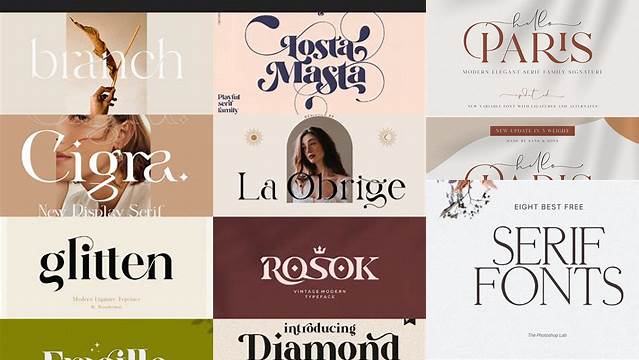
Stylish Serif Fonts: Free Downloads For You
Hey guys! Looking to add a touch of class and sophistication to your designs? You've come to the right place! Serif fonts are your best friend when you want to convey elegance, tradition, and readability. And the best part? There are tons of stylish serif fonts available for free download! This article is your ultimate guide to finding the perfect serif font to elevate your projects. We'll dive deep into everything from classic choices to modern twists, ensuring you'll discover fonts that make your text look absolutely stunning. So, let's get started and explore the wonderful world of serif fonts!
1. Classic Serif Fonts: Timeless Elegance
When we talk about stylish serif fonts, we can't ignore the classics. These fonts have stood the test of time and continue to be favorites for their readability and timeless appeal. Think of fonts like Times New Roman, Garamond, and Baskerville. These aren't just any fonts; they're the stalwarts of the design world. They bring a sense of history and authority to your text, making them perfect for formal documents, books, and websites that aim for a traditional look. But don't think they're outdated! These fonts are incredibly versatile and can be used in modern designs too. Imagine using Garamond for the body text of your website and pairing it with a sleek, sans-serif header. The contrast creates a sophisticated and balanced aesthetic. With classic serif fonts, you're not just choosing a typeface; you're choosing a legacy of design excellence. They're reliable, readable, and effortlessly elegant, making them a must-have in any designer's toolkit. The subtle serifs, those little feet at the end of the strokes, contribute to their readability by guiding the eye across the page. This is why they're so often used in long-form content, where readability is paramount. Choosing a classic serif font is like investing in a well-tailored suit – it will always look good and never go out of style.
2. Modern Serif Fonts: A Contemporary Twist
If you love the elegance of serifs but crave something a bit more contemporary, then modern serif fonts are your go-to. These fonts take the traditional elements of serifs and give them a fresh, updated look. Think clean lines, sharp contrasts, and a touch of personality. Fonts like Playfair Display, EB Garamond, and Merriweather are excellent examples. They retain the readability of classic serifs but add a dash of flair that makes them perfect for headlines, logos, and branding materials. Imagine a sleek, modern website using Playfair Display for its headings, creating a striking visual impact that grabs attention. Or consider using Merriweather for your blog's body text, offering a comfortable reading experience with a touch of sophistication. Modern serif fonts are all about balance – they blend tradition with innovation, creating a look that's both timeless and current. This makes them incredibly versatile for a wide range of projects, from editorial design to web design. They often feature higher contrast between thick and thin strokes, which adds to their visual interest and makes them stand out. Choosing a modern serif font is a great way to make a statement without sacrificing readability. It's a nod to the past with an eye on the future.
3. Elegant Serif Fonts for Branding
For brands that want to exude sophistication and luxury, elegant serif fonts are the key. These fonts have a refined, polished look that communicates quality and attention to detail. They're perfect for high-end brands in fashion, beauty, hospitality, and more. Think of brands like Chanel or Gucci – their logos and branding materials often feature elegant serifs that convey their premium status. Fonts like Didot, Bodoni, and Lora are fantastic examples of elegant serif fonts. They have a distinctive style with their high contrast and delicate serifs, making them ideal for logos, headlines, and packaging. Imagine a skincare brand using Didot for its logo, instantly conveying a sense of luxury and sophistication. Or consider a boutique hotel using Lora for its website, creating an inviting and stylish online presence. The key to using elegant serif fonts for branding is to ensure they align with your brand's overall aesthetic and message. They should enhance your brand's personality, not overshadow it. With elegant serif fonts, you're not just choosing a typeface; you're choosing a visual voice that speaks to your target audience and communicates your brand's values.
4. Free Serif Fonts for Websites
Creating a website that looks professional and inviting often starts with choosing the right fonts. And the good news is, there are plenty of free serif fonts available that are perfect for websites! These fonts can help you establish a strong visual hierarchy, improve readability, and create a cohesive design. Fonts like Open Sans (although technically a sans-serif, it pairs beautifully with serifs), Roboto Serif, and Montserrat (another great sans-serif pairing option) are excellent choices. They're highly readable on screens, come in various weights and styles, and are readily available on platforms like Google Fonts. Imagine using Roboto Serif for your website's body text, offering a clean and comfortable reading experience for your visitors. Or consider using Montserrat for your headings, creating a modern and approachable look. When choosing free serif fonts for websites, it's essential to consider factors like readability, loading speed, and compatibility across different browsers and devices. You want to ensure that your website looks great and functions smoothly for all users. Pairing serif fonts with sans-serif fonts is a popular technique to create visual interest and balance. Using a serif font for headings and a sans-serif font for body text can make your website more engaging and easier to read. With the abundance of free serif fonts available, you can create a stunning website without breaking the bank.
5. Downloadable Serif Fonts for Print
When it comes to print design, the right font can make all the difference. Downloadable serif fonts are essential for creating professional-looking documents, brochures, posters, and more. They offer a level of readability and sophistication that's crucial for print materials. Fonts like Garamond, Baskerville, and Times New Roman are classics for a reason – they're incredibly readable and versatile, making them perfect for a wide range of print projects. Imagine using Garamond for a book's body text, creating a timeless and elegant reading experience. Or consider using Baskerville for a formal invitation, conveying a sense of tradition and sophistication. When choosing downloadable serif fonts for print, it's important to consider factors like the font's weight, kerning, and overall legibility. You want to ensure that your text is easy to read, even at smaller sizes. High-quality serif fonts are designed to look crisp and clear in print, which is crucial for professional-looking materials. Many websites offer free and premium serif fonts for download, so you can find the perfect typeface for your print projects. Whether you're designing a business card or a magazine layout, the right serif font can elevate your design and make a lasting impression.
6. Best Serif Fonts for Body Text
The heart of any design with a lot of text is the body text. Choosing the best serif fonts for body text is crucial for ensuring readability and a pleasant reading experience. After all, no one wants to strain their eyes trying to decipher long paragraphs! Fonts like Georgia, Times New Roman, and Bookerly are excellent choices for body text. They're designed to be highly legible at smaller sizes, making them perfect for books, articles, and websites. Imagine reading a novel set in Georgia – the font's clear and open letterforms make it easy to lose yourself in the story. Or consider a news website using Times New Roman for its articles, providing a familiar and reliable reading experience. When selecting best serif fonts for body text, prioritize readability above all else. Look for fonts with consistent letter spacing, clear distinctions between characters, and a comfortable x-height (the height of lowercase letters). The goal is to create a visual experience that's seamless and effortless for the reader. Many designers recommend using a serif font for body text and a sans-serif font for headings to create visual contrast and hierarchy. This combination can make your design more engaging and easier to navigate. With the right serif font, your body text will not only be readable but also add to the overall aesthetic appeal of your design.
7. Top Serif Fonts for Headlines
Headlines are the first thing that grabs a reader's attention, so choosing the top serif fonts for headlines is essential for making a strong visual impact. These fonts need to be bold, eye-catching, and convey the essence of your message in a concise way. Fonts like Playfair Display, Bebas Neue (technically a sans-serif, but it pairs wonderfully with serifs), and Oswald (another excellent sans-serif option) are fantastic for headlines. They have a distinctive personality and can add a touch of elegance or modernity to your design. Imagine a fashion magazine using Playfair Display for its headlines, creating a sophisticated and stylish look. Or consider a blog using Oswald for its headings, providing a clean and contemporary feel. When selecting top serif fonts for headlines, think about the overall tone and style you want to convey. Do you want something classic and refined, or modern and bold? Choose a font that reflects your brand's personality and resonates with your target audience. Pairing a bold serif font for headlines with a simpler serif or sans-serif font for body text can create a visually balanced and engaging design. The right headline font can make your message stand out and draw readers in, so it's worth taking the time to find the perfect match.
8. Popular Serif Fonts in Graphic Design
In the world of graphic design, certain serif fonts have become perennial favorites for their versatility and aesthetic appeal. These popular serif fonts in graphic design are used across a wide range of projects, from branding and logos to print and web design. Fonts like Garamond, Helvetica (another versatile sans-serif that's often paired with serifs), and Times New Roman are staples in any designer's toolkit. They're known for their readability, timelessness, and ability to convey a sense of professionalism and sophistication. Imagine a corporate brochure using Garamond for its body text and headings, creating a cohesive and polished look. Or consider a website using Helvetica for its navigation and body text, providing a clean and modern user experience. When it comes to popular serif fonts in graphic design, the key is to use them in a way that complements your overall design and message. Don't just choose a font because it's popular; choose it because it's the right fit for your project. Many designers mix and match serif and sans-serif fonts to create visual contrast and interest. This technique can add depth and personality to your design, making it stand out from the crowd. By understanding the strengths of popular serif fonts and how to use them effectively, you can create designs that are both visually appealing and highly functional.
9. Unique Serif Fonts to Stand Out
Tired of the same old fonts? Want to make your designs truly unique? Then it's time to explore some unique serif fonts to stand out. These fonts have a distinctive personality and can add a touch of originality to your projects. Think of fonts like Mrs Eaves, Bembo, and Caslon. These fonts have a rich history and a unique character that sets them apart from more common typefaces. Imagine a wedding invitation using Mrs Eaves, creating an elegant and slightly whimsical look. Or consider a book cover using Bembo, conveying a sense of classic literature and sophistication. When choosing unique serif fonts to stand out, it's important to consider how the font's personality aligns with your message. You want to choose a font that enhances your design, not distracts from it. While unique fonts can add a lot of character, it's also crucial to ensure they're still readable, especially in body text. Experiment with different pairings and see how these unique serifs can bring your designs to life. By using unique serif fonts, you can create designs that are memorable and truly stand out from the competition.
10. Serif Fonts with Character
Sometimes, you need a font that does more than just display text; you need a font with serif fonts with character. These fonts have a distinct personality and can add a lot of flavor to your designs. Fonts like Abril Fatface, Arvo, and Bitter are excellent examples of serifs with character. They have unique shapes, weights, and styles that make them stand out from more traditional typefaces. Imagine a poster using Abril Fatface for its headline, creating a bold and attention-grabbing statement. Or consider a blog using Arvo for its headings, providing a strong and contemporary feel. When selecting serif fonts with character, think about the message you want to convey and the overall tone of your design. These fonts can be used to create a sense of playfulness, sophistication, or even drama. However, it's essential to use them judiciously. Too much character can be overwhelming, so balance is key. Pairing a serif font with character with a simpler, more neutral font can create a visually appealing contrast. By using serif fonts with character, you can add personality and flair to your designs, making them truly memorable.
11. Serif Fonts for a Professional Look
In the business world, presenting a professional image is crucial, and the fonts you use play a significant role in that. Choosing the right serif fonts for a professional look can convey credibility, trustworthiness, and attention to detail. Fonts like Garamond, Baskerville, and Times New Roman are classic choices for a reason – they're reliable, readable, and exude professionalism. Imagine a legal document using Garamond, creating a sense of formality and authority. Or consider a business report using Baskerville, providing a clear and easy-to-read layout. When selecting serif fonts for a professional look, prioritize readability and consistency. You want a font that's easy on the eyes and maintains a consistent style throughout your materials. Avoid fonts that are overly decorative or whimsical, as they can detract from your message. Pairing a professional serif font with a clean sans-serif font can create a balanced and modern look. The goal is to choose fonts that enhance your message and project a polished, professional image. With the right serif fonts, you can ensure your documents and designs convey the professionalism you want to project.
12. Stylish Serif Fonts for Logos
A logo is the face of your brand, so choosing the right font is crucial for making a lasting impression. Stylish serif fonts for logos can convey a sense of sophistication, tradition, and trustworthiness. Fonts like Playfair Display, Lora, and Didot are excellent choices for logos, especially for brands that want to project an elegant or high-end image. Imagine a luxury brand using Didot for its logo, creating a classic and refined look. Or consider a boutique hotel using Lora, providing an inviting and stylish feel. When selecting stylish serif fonts for logos, think about your brand's personality and the message you want to convey. Your logo font should be unique enough to stand out but also easy to read and recognize. It's also essential to consider how the font will look in different sizes and applications, from business cards to website headers. A well-chosen serif font can add a touch of class and sophistication to your logo, making it memorable and impactful.
13. Serif Fonts for Resumes and CVs
Your resume or CV is your first impression on potential employers, so making it visually appealing and easy to read is crucial. Choosing the right serif fonts for resumes and CVs can help you present yourself as professional, organized, and detail-oriented. Fonts like Garamond, Times New Roman, and Georgia are excellent choices for resumes. They're highly readable, classic, and convey a sense of professionalism. Imagine a recruiter reading a resume set in Garamond – the font's clarity and elegance make it easy to scan and absorb information. Or consider a CV using Georgia, providing a clean and modern layout. When selecting serif fonts for resumes and CVs, prioritize readability above all else. You want a font that's easy on the eyes and doesn't distract from your qualifications. Avoid fonts that are too decorative or unconventional, as they can make your resume look cluttered and unprofessional. Stick to classic, readable fonts that convey confidence and competence. A well-chosen serif font can help your resume stand out for the right reasons, making a positive first impression on potential employers.
14. Free Google Serif Fonts
For designers on a budget, free Google serif fonts are a lifesaver. Google Fonts offers a vast library of high-quality serif fonts that are free to use in your projects. This means you can create stunning designs without spending a dime on typography. Fonts like Roboto Serif, Merriweather, and Arvo are excellent choices from Google Fonts. They're versatile, readable, and come in various weights and styles. Imagine a website using Roboto Serif for its body text, providing a clean and modern reading experience. Or consider a blog using Merriweather for its headings, creating a stylish and engaging look. When exploring free Google serif fonts, take advantage of Google Fonts' filtering options to find the perfect font for your needs. You can filter by style, weight, and even language. It's also helpful to preview how different fonts pair together to create a cohesive design. With so many great options available, Google Fonts makes it easy to find the perfect serif font for your project, no matter your budget.
15. Serif Fonts for Books and Publications
When it comes to books and publications, readability is paramount. Choosing the right serif fonts for books and publications can make the difference between a pleasant reading experience and one that's straining and frustrating. Fonts like Garamond, Baskerville, and Caslon are classics for a reason – they're designed to be highly legible in long-form text. Imagine reading a novel set in Garamond, where the font's elegance and clarity draw you into the story. Or consider a textbook using Baskerville, providing a clear and easy-to-follow layout. When selecting serif fonts for books and publications, prioritize fonts with consistent letter spacing, comfortable x-heights, and well-defined serifs. These features contribute to a smoother reading experience and prevent eye fatigue. Many publishers use a combination of serif and sans-serif fonts, with serifs for the body text and sans-serifs for headings or captions. This can create visual contrast and make the publication more engaging. By carefully selecting your serif fonts, you can ensure that your books and publications are not only visually appealing but also highly readable.
16. Best Serif Fonts for Long-Form Content
Long-form content demands fonts that are easy on the eyes and encourage prolonged reading. The best serif fonts for long-form content are those that prioritize readability and prevent eye strain. Fonts like Georgia, Times New Roman, and Bookerly are specifically designed for extended reading sessions. Imagine delving into a lengthy article set in Georgia, where the font's clarity and open letterforms keep you engaged. Or consider a research paper using Times New Roman, providing a familiar and professional look. When choosing best serif fonts for long-form content, look for fonts with consistent letter spacing, comfortable x-heights, and clear distinctions between characters. These features contribute to a more seamless reading experience. The serifs themselves help guide the eye across the page, reducing the effort required to read long passages. Using a well-chosen serif font for long-form content demonstrates a commitment to your readers' comfort and engagement, making your content more enjoyable and accessible.
17. High-Quality Serif Fonts Free
Finding high-quality serif fonts free of charge is like discovering a hidden gem. Fortunately, there are numerous resources where you can access professionally designed serif fonts without spending a dime. Websites like Google Fonts, Font Squirrel, and DaFont offer a vast selection of free serif fonts that are perfect for a wide range of projects. Imagine creating a stunning website using a free Google Font like Roboto Serif or Merriweather. Or consider designing a professional brochure using a free font from Font Squirrel. When searching for high-quality serif fonts free, pay attention to the font's license to ensure you can use it for your intended purposes. Many free fonts come with specific usage restrictions, such as for personal use only. It's also a good idea to preview the font in different sizes and contexts to ensure it meets your needs. With a little bit of searching, you can find fantastic free serif fonts that rival their paid counterparts, allowing you to elevate your designs without breaking the bank.
18. Affordable Serif Fonts for Designers
While free fonts are great, sometimes investing in affordable serif fonts for designers can open up a whole new world of typographic possibilities. Premium fonts often offer more features, greater stylistic range, and higher quality design than free options. Websites like MyFonts, Creative Market, and Adobe Fonts offer a wide variety of affordable serif fonts that can elevate your designs. Imagine using a meticulously crafted serif font from MyFonts to create a unique logo for your client. Or consider using a versatile serif family from Adobe Fonts to ensure consistency across all your branding materials. When exploring affordable serif fonts for designers, think about the long-term value they can bring to your work. Investing in a high-quality font can save you time and effort in the long run, and it can also enhance the overall professionalism and aesthetic appeal of your designs. Keep an eye out for sales and bundles to get even more value for your money. By strategically investing in affordable serif fonts, you can build a robust typographic library that serves your design needs for years to come.
19. Serif Fonts for Website Headers
Website headers are prime real estate for grabbing visitors' attention, and the right font can make all the difference. Serif fonts for website headers can convey a sense of sophistication, authority, and visual interest. Fonts like Playfair Display, Lora, and Abril Fatface are excellent choices for headers, adding a touch of elegance and personality to your site. Imagine a blog using Playfair Display for its headers, creating a stylish and engaging reading experience. Or consider a business website using Abril Fatface for its headings, making a bold and memorable statement. When selecting serif fonts for website headers, think about the overall tone and style of your website. Your header font should complement your brand's personality and attract your target audience. It's also important to consider the font's readability and how it pairs with the body text font. A well-chosen serif font can make your website headers stand out, drawing visitors in and encouraging them to explore your content further.
20. Serif Fonts for Business Cards
Your business card is a miniature representation of your brand, so it's essential to make it visually appealing and professional. Choosing the right serif fonts for business cards can convey credibility, trustworthiness, and attention to detail. Fonts like Garamond, Baskerville, and Georgia are classic choices for business cards, offering a timeless and elegant look. Imagine handing someone a business card set in Garamond, where the font's sophistication and clarity leave a lasting impression. Or consider a business card using Georgia, providing a clean and easy-to-read layout. When selecting serif fonts for business cards, prioritize readability and ensure the font remains legible even at small sizes. Avoid fonts that are too decorative or condensed, as they can be difficult to read. Keep your font choices consistent with your overall branding to create a cohesive and professional image. A well-chosen serif font can make your business card stand out and help you make a positive first impression.
21. How to Pair Serif Fonts
The art of how to pair serif fonts effectively can elevate your designs from good to great. Combining different serif fonts can create visual interest and hierarchy, but it's crucial to do it thoughtfully to avoid a cluttered or chaotic look. A good starting point is to pair a serif font with a distinct personality with a more neutral serif font. For example, you might pair Playfair Display with Garamond or Lora with Georgia. When considering how to pair serif fonts, think about the contrast and harmony between the fonts. Do they complement each other, or do they clash? Pay attention to the fonts' weights, styles, and x-heights. Fonts with similar x-heights tend to pair well together. Another common technique is to pair a serif font with a sans-serif font. This can create a dynamic contrast while maintaining readability. For example, you might use a serif font for headings and a sans-serif font for body text. Experiment with different combinations and trust your eye to find pairings that feel balanced and visually appealing. Effective font pairing is a skill that develops with practice, so don't be afraid to try new things and learn from your experiences.
22. Serif Font Styles: Bold, Italic, Light
Understanding the different serif font styles, such as bold, italic, and light, is essential for creating visually engaging and well-structured designs. Each style serves a specific purpose and can enhance the readability and impact of your text. Bold serif fonts are excellent for headlines, subheadings, and emphasizing key words or phrases. They draw the reader's eye and create a sense of importance. Italic serif fonts are often used for emphasis, quotations, or to create a sense of elegance and sophistication. They add a touch of flair to your text and can help differentiate certain elements from the rest of your content. Light serif fonts are perfect for body text, as they provide a clean and airy feel that's easy on the eyes. They work well in long-form content where readability is paramount. When considering serif font styles, think about how you can use them to create visual hierarchy and guide the reader through your design. Experiment with different styles and weights to find the perfect balance for your project. Using serif font styles effectively can transform your text from plain to powerful.
23. Serif Fonts for Print vs. Web
Choosing serif fonts for print vs. web requires considering the unique characteristics of each medium. While some serif fonts work well in both print and digital contexts, others are better suited for one over the other. For print, fonts like Garamond, Baskerville, and Times New Roman are classics for a reason. They're highly readable, versatile, and render beautifully on paper. The crisp, well-defined serifs contribute to their legibility in print. For the web, fonts like Georgia, Merriweather, and Roboto Serif are excellent choices. They're designed to be highly readable on screens, even at smaller sizes. Screen rendering can sometimes make serifs appear blurry or pixelated, so web-friendly serif fonts are optimized for clarity in digital environments. When considering serif fonts for print vs. web, think about the specific needs of your project and the reading experience you want to create. You might choose a classic serif for a printed book and a more modern serif for your website. Pairing fonts strategically across different media can help create a cohesive and professional brand identity.
24. Best Free Serif Fonts for Commercial Use
For designers working on commercial projects, finding best free serif fonts for commercial use is a must. Using fonts without the proper license can lead to legal trouble, so it's crucial to ensure you have the rights to use the fonts in your commercial work. Fortunately, there are numerous websites that offer high-quality serif fonts with licenses that allow for commercial use. Google Fonts is a fantastic resource, offering a vast library of free fonts with open-source licenses. Many of the fonts on Font Squirrel also come with commercial licenses. When searching for best free serif fonts for commercial use, always double-check the font's license agreement to understand the specific terms and conditions. Some licenses may have restrictions on how you can use the font, such as for certain types of projects or within specific industries. Being diligent about licensing ensures that you can use your chosen serif fonts with confidence, knowing that you're respecting copyright laws and protecting your business.
25. Download Serif Fonts for Mac
If you're a Mac user, you have a variety of options for download serif fonts for Mac. Macs come pre-loaded with a selection of classic serif fonts, such as Times New Roman and Georgia. However, you can easily expand your font library by downloading additional serif fonts from various sources. Websites like Google Fonts, Font Squirrel, and MyFonts offer a wide range of serif fonts that are compatible with Mac. When you download serif fonts for Mac, the process is typically straightforward. You'll usually download a .otf or .ttf file, which you can then install by double-clicking the file and following the prompts. The font will then be available for use in all your Mac applications. It's a good idea to organize your downloaded fonts into folders to keep your font library tidy. Experimenting with different serif fonts on your Mac can help you create stunning designs and add personality to your projects.
26. Download Serif Fonts for Windows
Similar to Mac users, Windows users have numerous options for download serif fonts for Windows. Windows also comes with a pre-installed set of serif fonts, but downloading additional fonts can greatly expand your typographic toolkit. Websites like Google Fonts, Font Squirrel, and DaFont offer a plethora of serif fonts that are compatible with Windows. When you download serif fonts for Windows, the process is usually quite simple. You'll download a .otf or .ttf file, and you can install the font by right-clicking the file and selecting